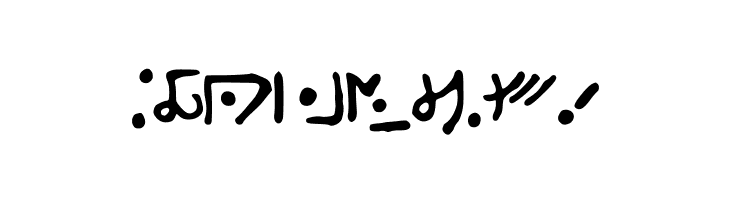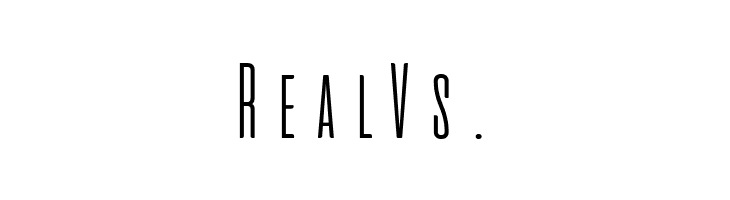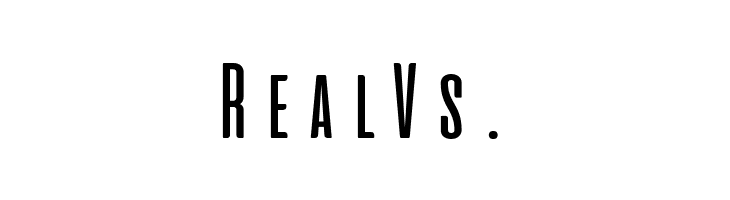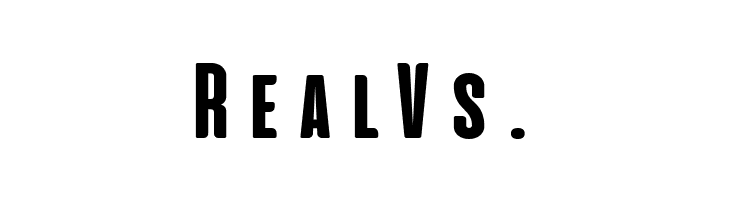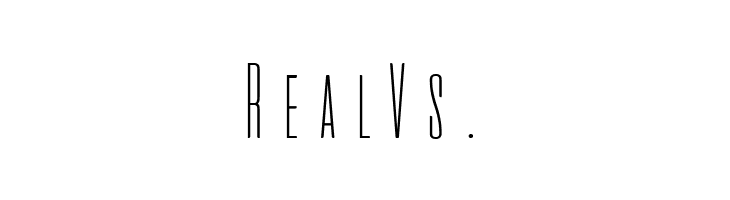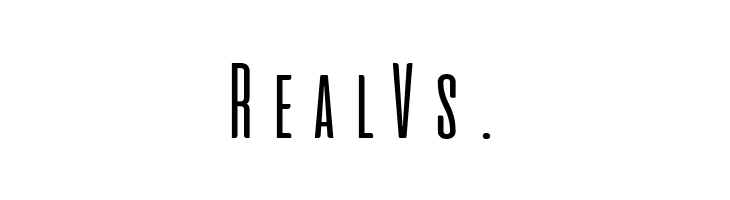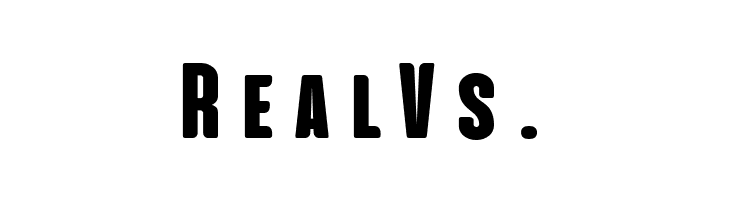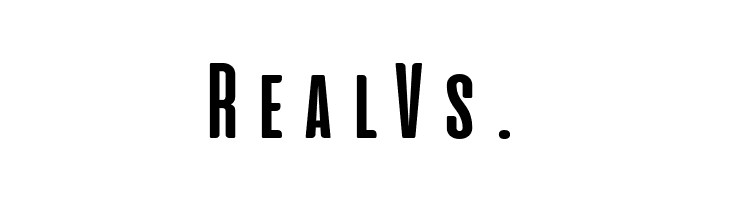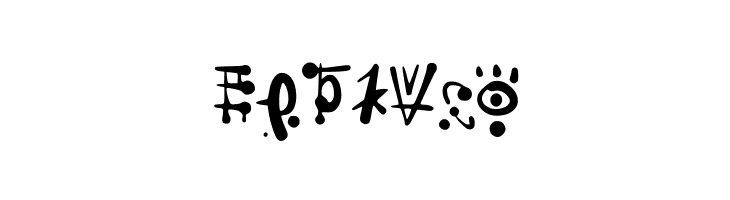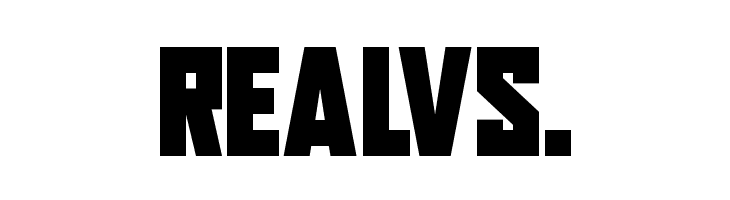
A chaotic, hand-drawn font with irregular, jagged letterforms.
A bold, futuristic italic font with sharp angles and tight spacing.
A decorative and abstract script resembling alien hieroglyphs.
Decorative script with alien-inspired, abstract glyphs.
A futuristic, geometric font with sharp angles and a sleek design.
A bold, futuristic font with geometric and rounded letterforms.
A playful and decorative icon set of alien heads and UFO symbols.
A whimsical set of alien-themed icon characters with playful designs.
A whimsical, alien-themed decorative font with unique character designs.
A playful and decorative font with alien-like character designs.
A whimsical and decorative font featuring unique cartoonish characters.
A playful, cartoon-like decorative font with unique character designs.
A playful, futuristic font with bold strokes and dot connections.
A bold, spiky font with a playful and textured appearance.
A bold, futuristic font with a unique outlined, three-dimensional style.
A bold, futuristic font with geometric shapes and sharp angles.
A bold, condensed font with a modern and sleek design.
A bold, condensed font with geometric letterforms and uniform stroke width.
A bold, modern font with thick, uniform strokes and a slightly condensed style.
A modern, tall, and narrow font with a sleek, minimalistic design.
A bold, impactful font with strong strokes and a slightly condensed appearance.
A tall, narrow font with a modern and sleek design, featuring elongated characters and uniform spacing.
A modern, thin, and elongated font with a sleek, minimalistic style.
Whimsical, mask-themed decorative font with bold, high-contrast illustrations.
An edgy, angular font with sharp, jagged strokes and a dynamic, chaotic style.